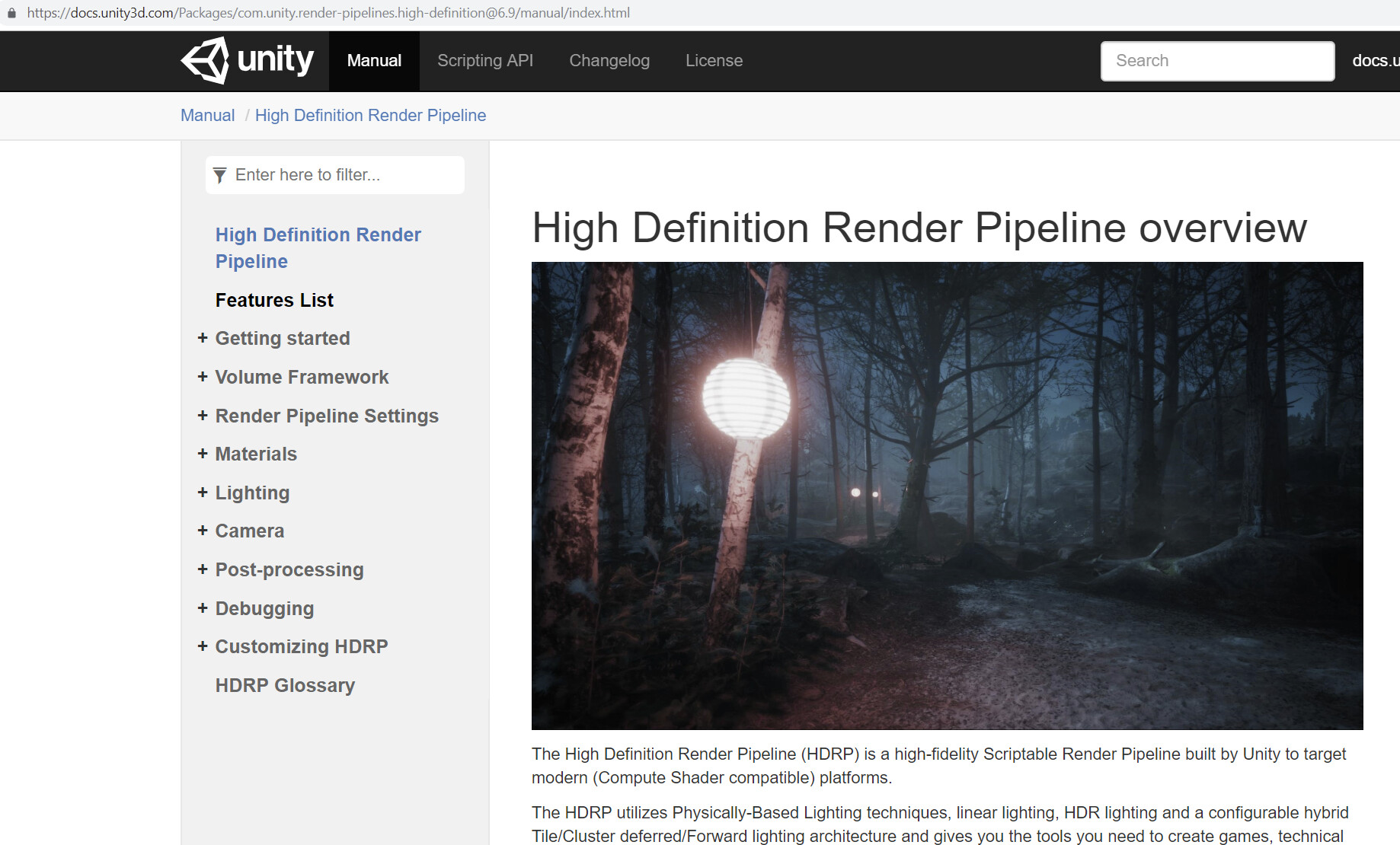
I’m seeing this in Chrome, IE, and Edge on a Windows PC:
Anything past the Packages documentation page with links to everything else gives me this illegible cursive at an extremely low resolution. Anybody else having this problem?
I’m seeing this in Chrome, IE, and Edge on a Windows PC:
Anything past the Packages documentation page with links to everything else gives me this illegible cursive at an extremely low resolution. Anybody else having this problem?
I think it’s on your machine. I see this:
Weird, every other site looks fine. … 0_o
Well, did an inspect on the Package Manager page and one of the child pages (the HDRP page)…
The Package Manager List Header shows up as: font-family: ‘avalonbold’, sans-serif;…
while the HDRP Header: font-family: avalon, sans-serif;.
The catch is the actual full name of Avalon’s bold font is avalon-bold, so its probably falling back to generic sans-serif whatever.
Whereas avalon’s actual name is avalon, and is an actual cursive nightmare that I must have installed for a graphic design project recently.
So, looks like its actual broken and I just happen to have this one uncommon font installed to see it.